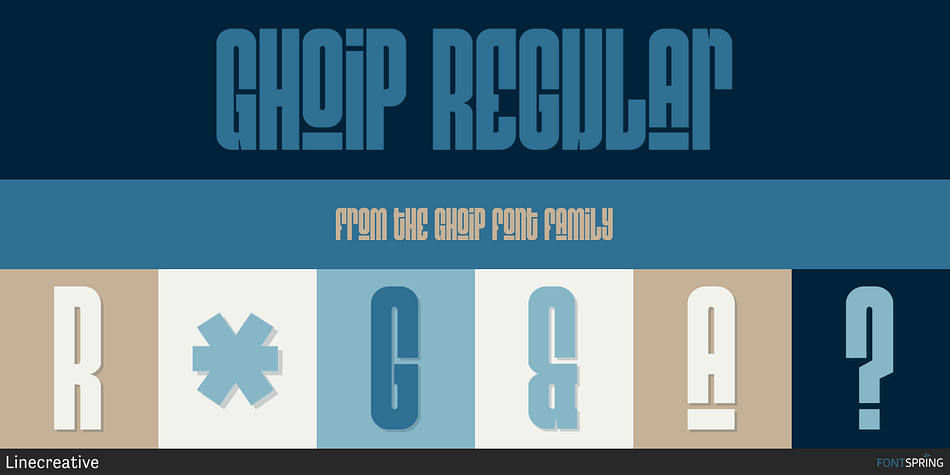
Ghoip Regular
Designed by Ari Juanda, Ghoip is a display sans font family published by Linecreative.
Introducing Ghoip is a thick sans-serif typeface created for use in bold titles, with its sleek yet bold appearance and complete with ligatures character, which provides an extraordinary design experience,Come with single weight, legible and expressive shapes